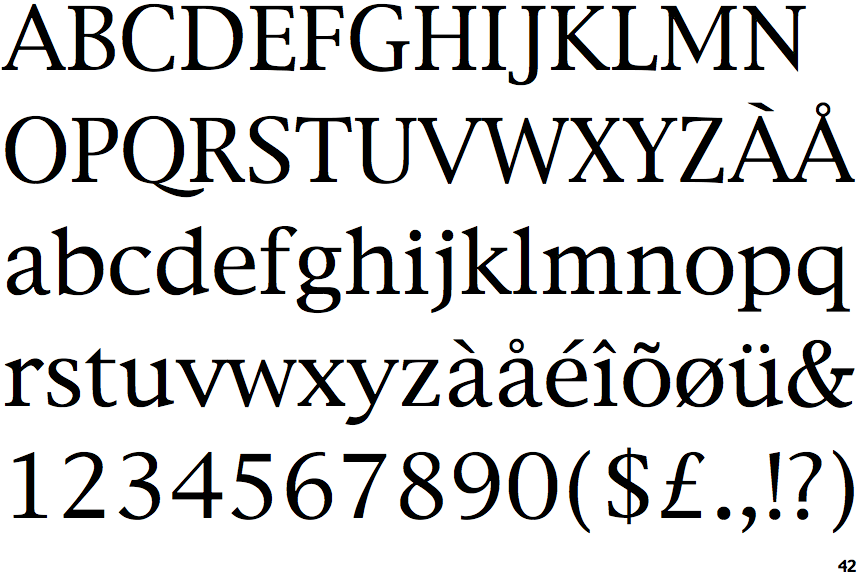
New York Font Apple
New York Font Apple. Sf pro supports over 150 languages across latin, greek, and cyrillic scripts. New york font is a serif typeface that has a transitional classification.
Originally titled “ardmore”, it was renamed to new york before its initial release as part of the world class cities naming. Originally codenamed serif ui, it was first showcased in wwdc 2018 on june 4, 2018 when the new apple books app was introduced. New york font is a serif typeface that has a transitional classification.
However, After A Few Years, Kris Holmes And Charles Bigelow, Famous Typeface Designers Again.
This beautiful, timeless serif typeface is the epitome of haute couture. Originally codenamed serif ui, it was first showcased in wwdc 2018 on june 4, 2018 when the new apple books app was introduced. Quiz font field guide creative character:
Codenamed Serif Ui First Used In Apple Books App On Ios 12 In 2018.
At The Beginning Of Macintosh Operating Systems, This Typeface Was The Standard Bitmap Serif Font.
By installing or using this font, you are agree to the product usage agreement. This elegant free font needs to be in your collection and is perfect for your next luxury design project. New york typeface is basically a revamped version of the former serif font but it still keeps its original retro and nostalgic feel.
Although I Can't Quite Remember Whether Apple Belatedly Made Truetype Versions Of These.
At the wwdc 2019, apple announced ios 13, macos catalina and ultra powerful mac pro. This seems to be a fairly handsome typeface. It was released to developers in june 2019.